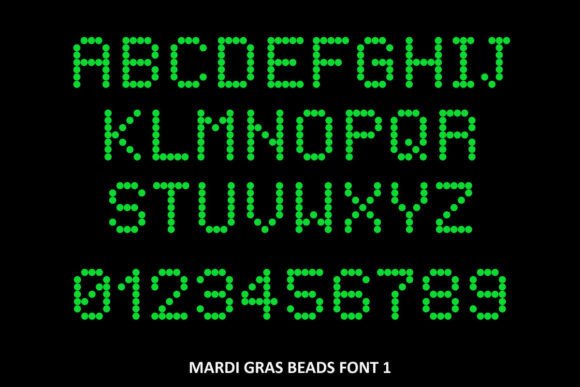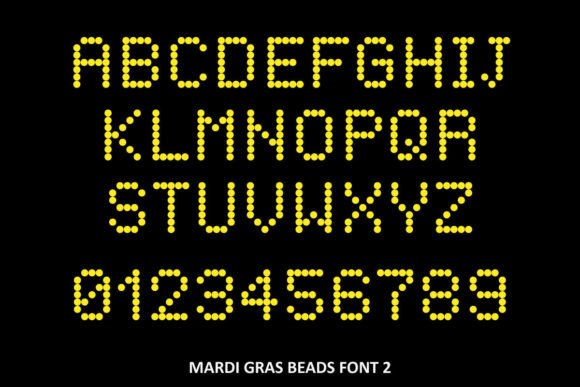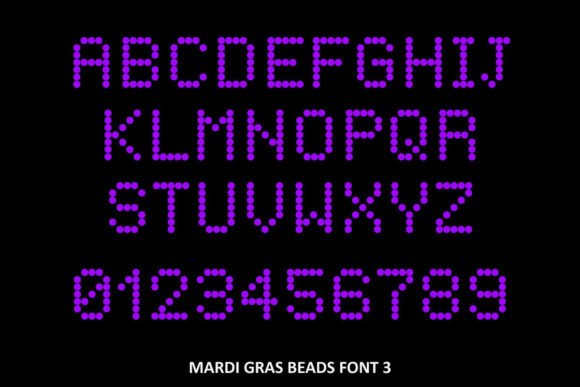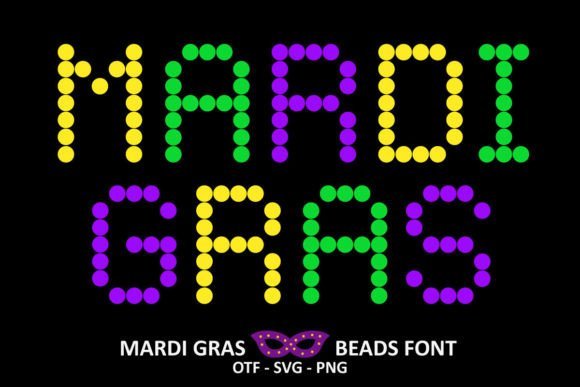
Introducing the β€œMardi Gras Beads” – a fun and festive color font.
Each letter is decorated with a beautiful circle beads-shaped symbol, which is perfect for all your Mardi Gras Festival-themed projects You can use it to design products such as banners, content, mugs, cards, shirts, stationery, social media posts, and more.